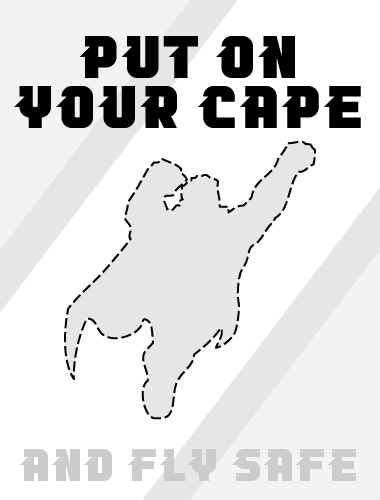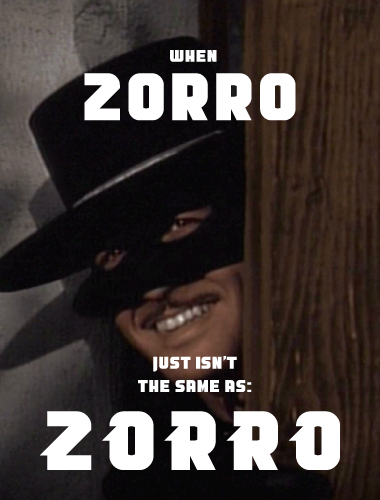
Cape
¡Tú eres mi Capitán!
(Ehem, ehem,) ¿Superman?
No es un pájaro, no es un avión, es...
One excelent font!!!!
WoW!!!
Brilliant! 10/10
This is awesome! Maybe for lowercase, just have uppercase but a bit shorter? :)
very nice work 10
For the lower-case I was just thinking of using the upper-case but without the...ugh...cape.
Very good, Z seems to be the odd one out... 10/10
That works well! :D
What's wrong with the "Z"?
I think Z is fine, don't think it can be improved. I especially like the curved corner. Great font!